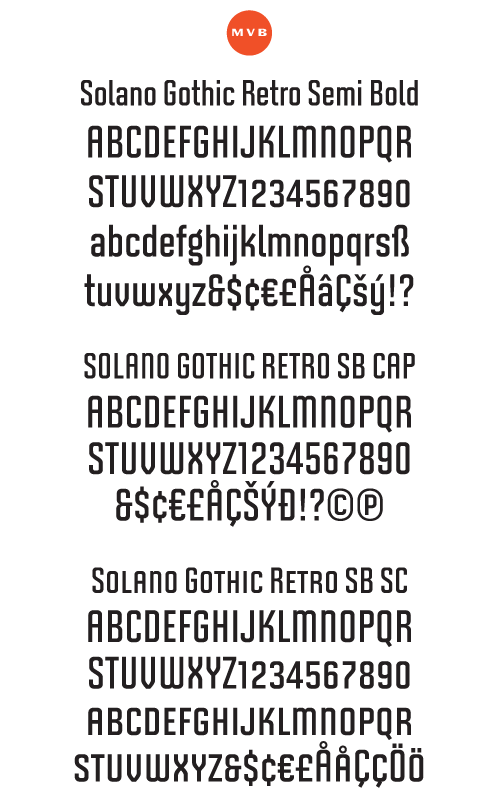
Solano Gothic Retro Semi-Bold Package (3 Fonts) (MVB Fonts)
MVB Solano Gothic was originally designed as a display face for the City of Albany, California, located on the San Francisco Bay facing the Golden Gate Bridge and bordering the the Berkeley hills. Named for the City's main street, the typeface needed to work on signage in proximity to older buildings, in contemporary settings, and for general print and web use. Rather than creating a neutered design to cover all bases, Mark van Bronkhorst chose to develop a simple, strong, condensed face that would offer flexibility of style by providing both retro and neutral forms.MVB FONTS End User License Agreement